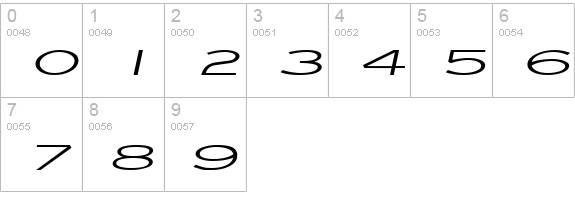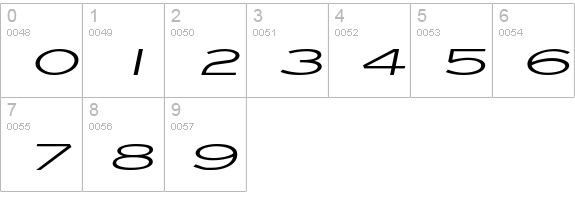
Eye glass Extended Italic Font Details
Eye glass Extended Italic is a distinctive, extended-width, italic variant in the Eye typeface family \xE2\x80\x94 well suited to design and typography projects.
Eye glass Extended Italic is a modern and stylish font that brings a touch of elegance to any design project. Its sleek and sophisticated appearance makes it perfect for a wide range of applications, from branding to editorial design. The italicized style adds a sense of drama and flair, making text stand out in a unique way. And the best part? Eye glass Extended Italic is available for free download at FontsMarket.com. This means you can easily incorporate this beautiful font into your projects without any cost. Don't miss out on the opportunity to elevate your designs with Eye glass Extended Italic - download it today and see the difference it can make!